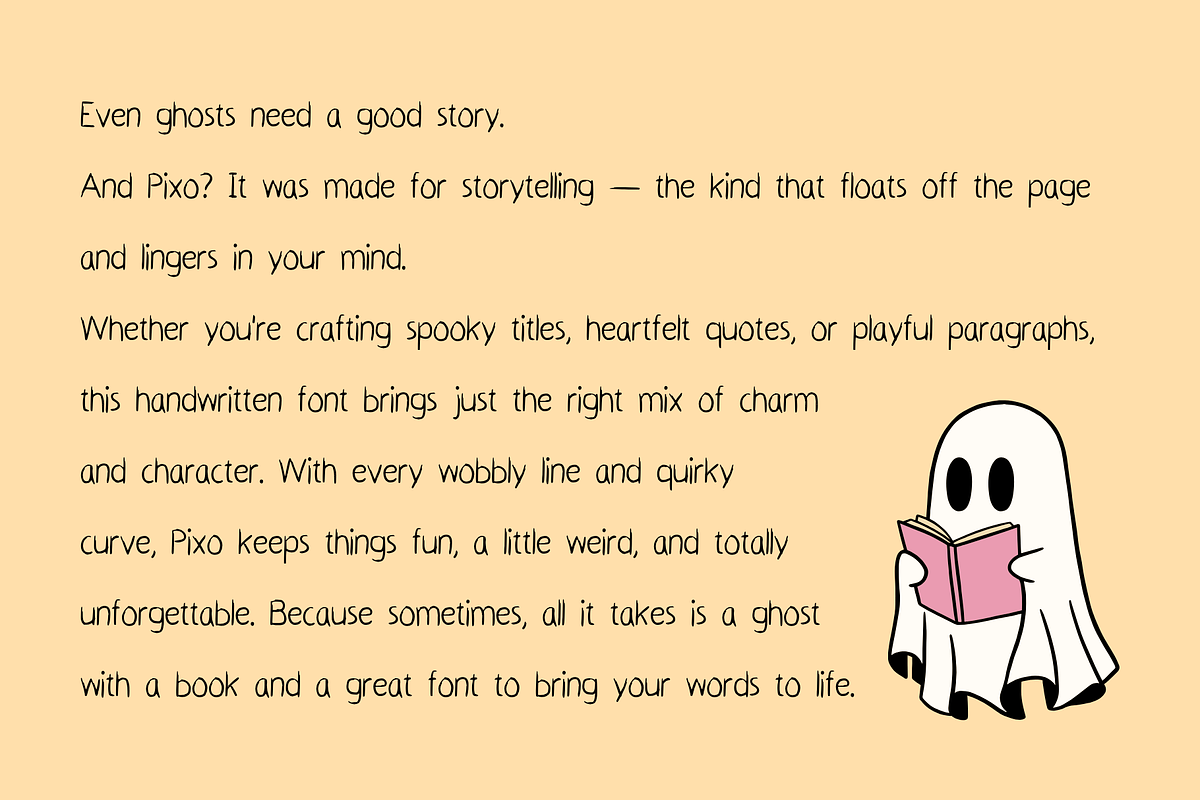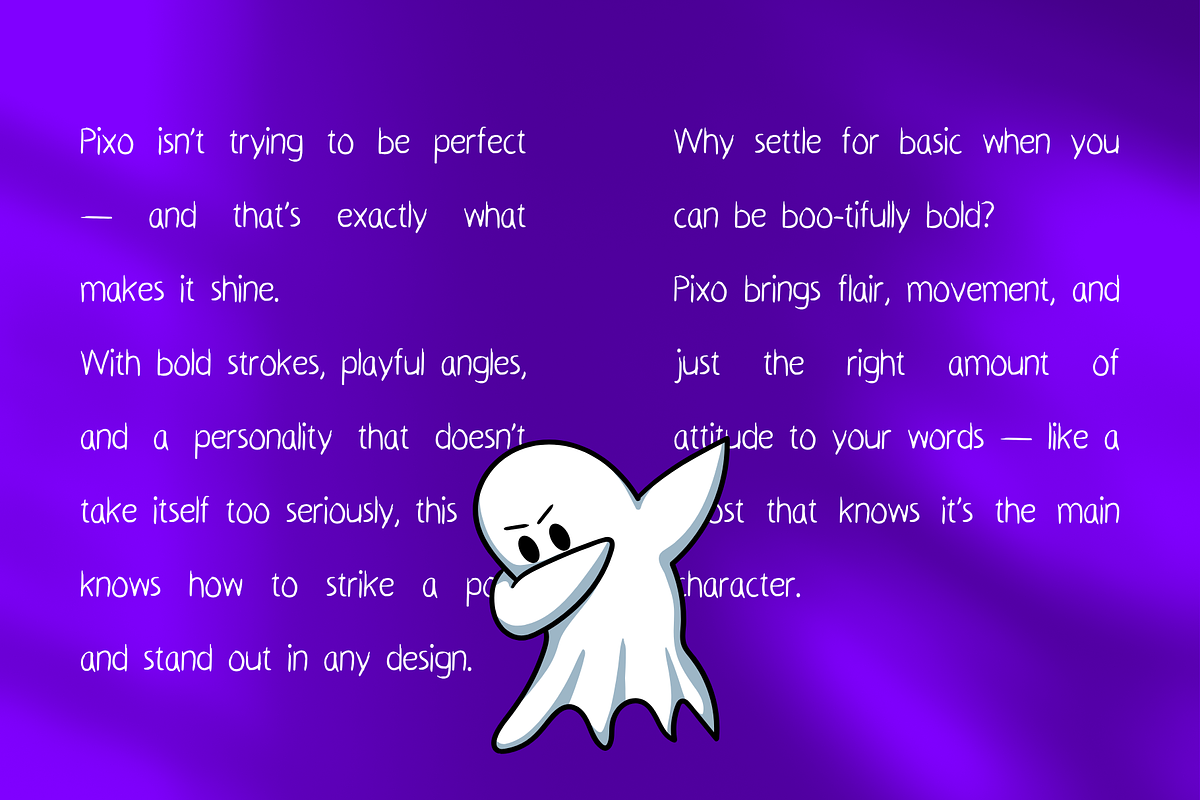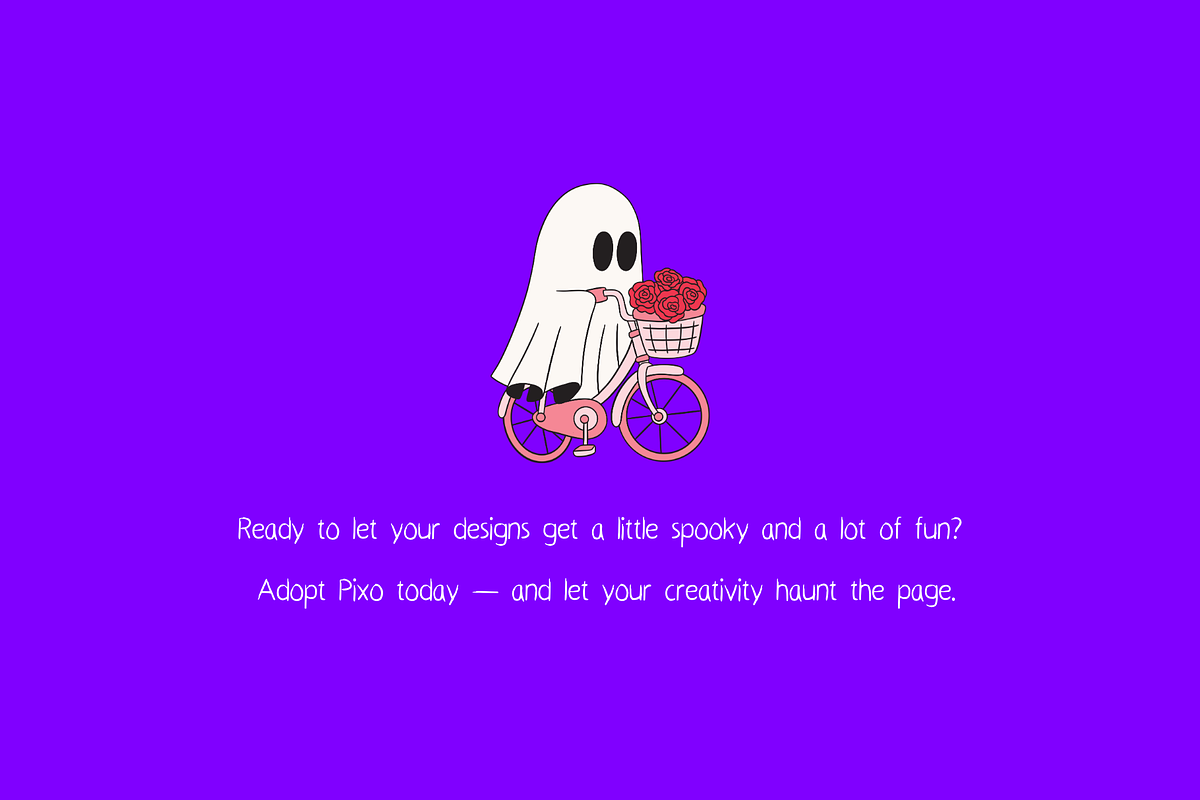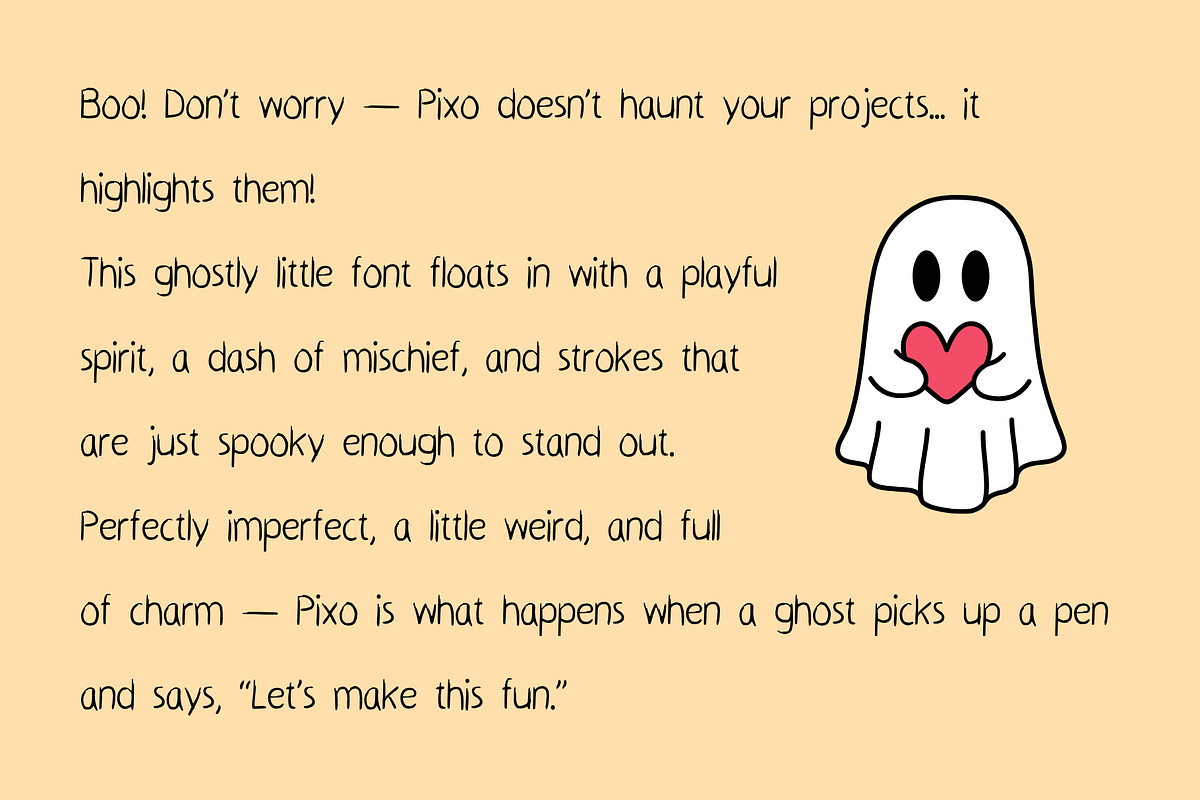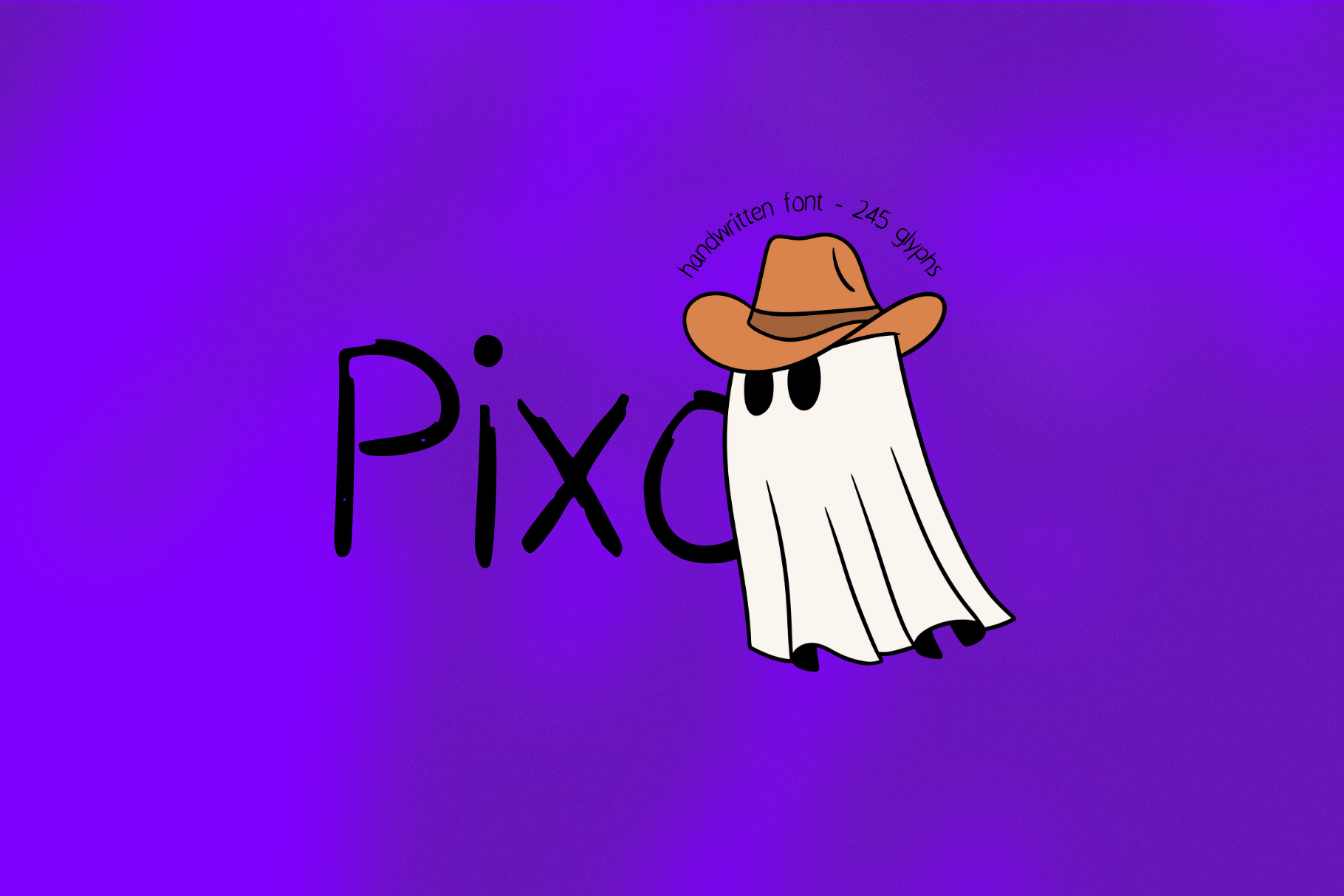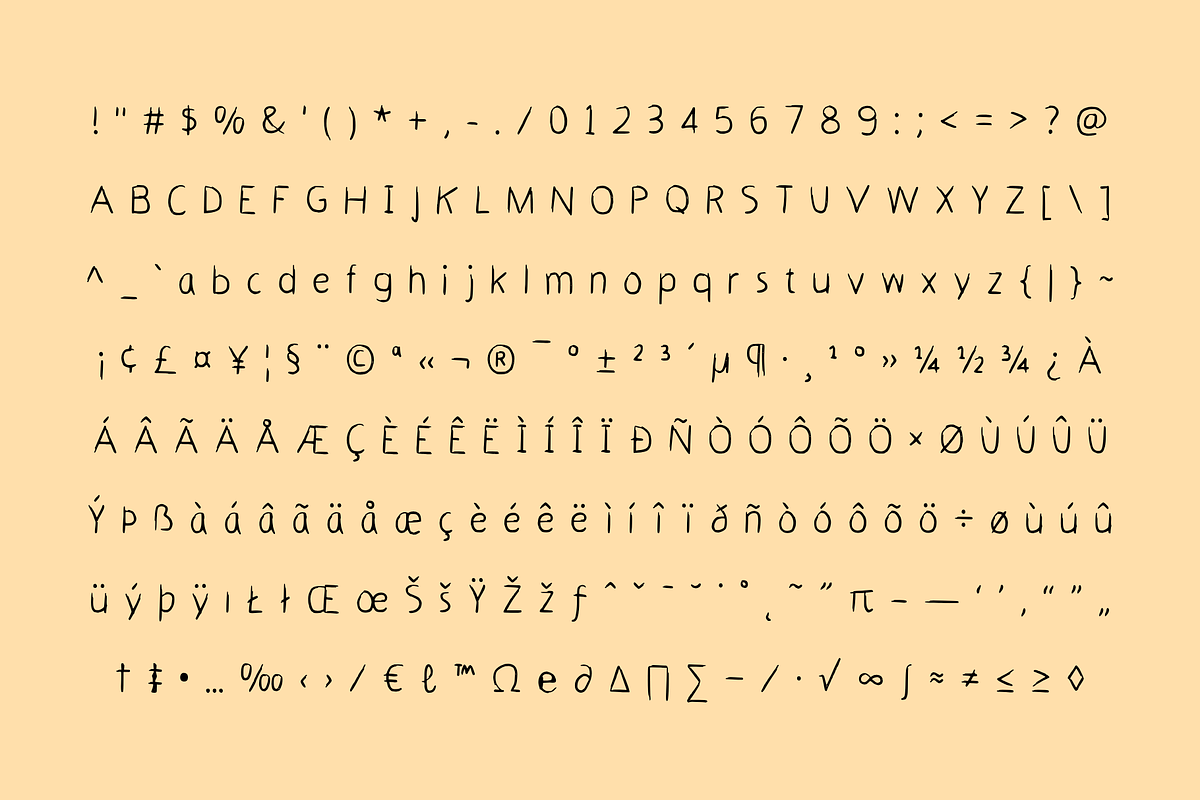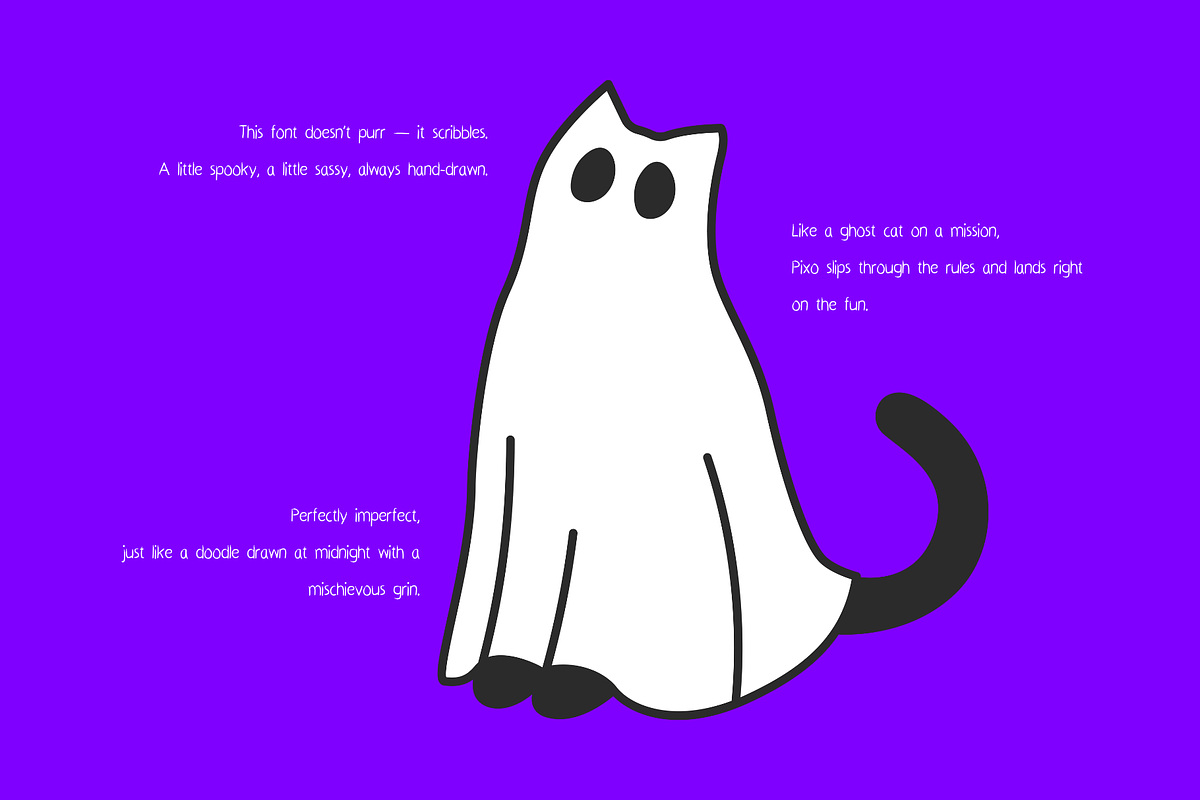
Pixo – A Playful Handwritten Font
Meet Pixo – a fun, quirky handwritten font that floats between spooky and adorable. With its wobbly strokes and lively energy, Pixo brings a playful spirit to any project. Inspired by doodles, cartoons, and the charm of mischievous ghosts, this font adds personality without trying too hard.
Whether you're designing Halloween content, crafting cute stickers, or working on branding that needs a little edge (but still wants to hug you after), Pixo delivers a balance of humor, style, and casual expressiveness. It's a little weird, a little spooky, and totally unique — just like your best ideas.
👻 This font is ideal for: ✔ Halloween designs & spooky season content ✔ Cute and quirky branding or logos ✔ Stickers, labels, and fun product packaging ✔ Social media posts, quotes & digital planners ✔ Zines, journals, illustrations, and comics